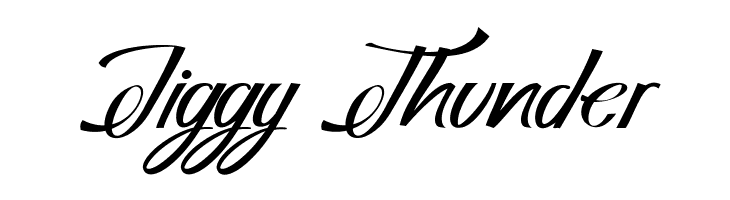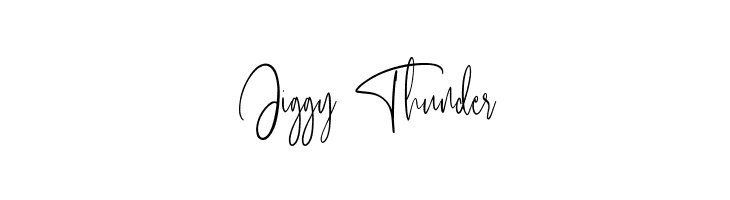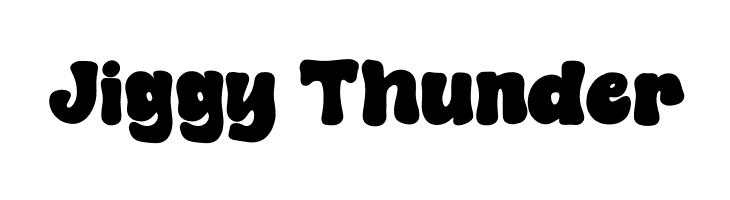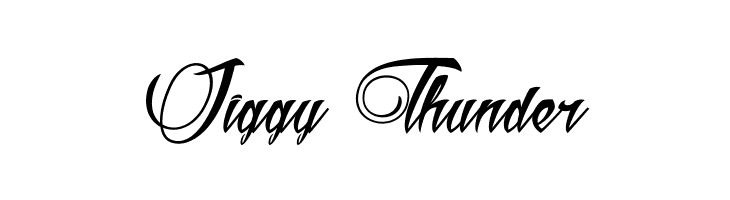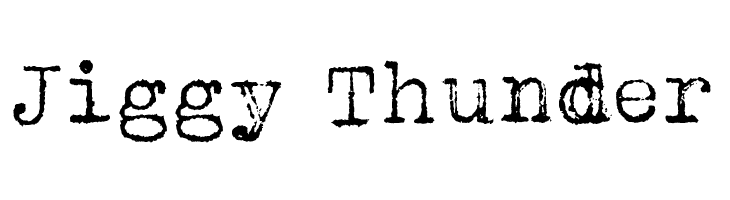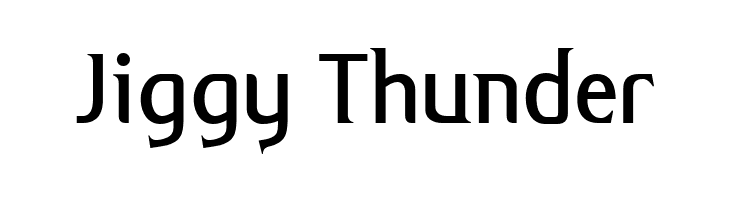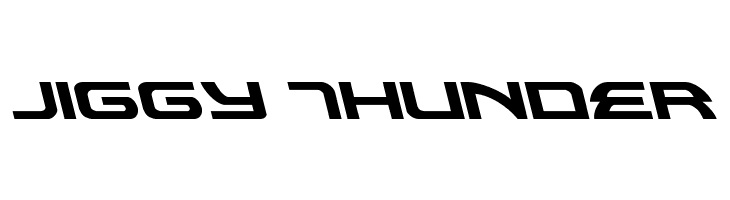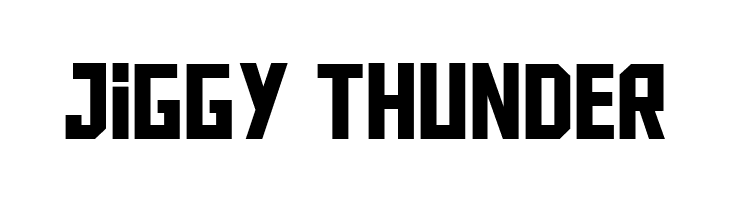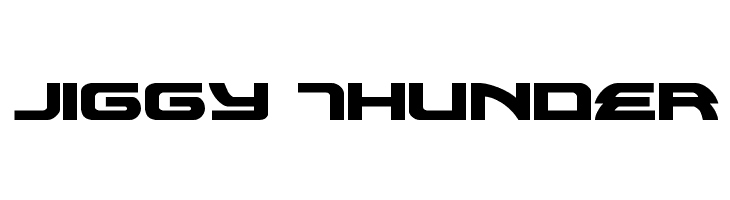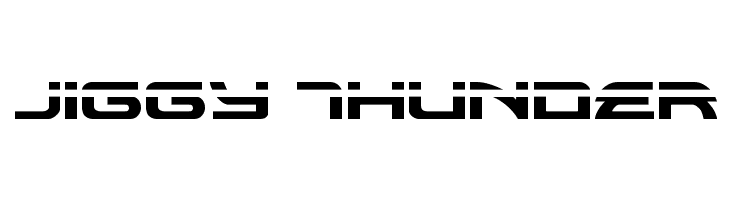
• Alaskano Free Regular
A bold, playful font with rounded, thick strokes and a whimsical style.
• Alaymen Personal Use
A bold, elegant script font with flowing, cursive letterforms.
• Albertsthal Typewriter
A vintage, typewriter-style font with a distressed, monospaced appearance.
• Albertsthal Typewriter
A vintage typewriter-style font with a distressed, textured appearance.
• Albias Smug
An elegant, flowing script font with intricate loops and swirls.
• Aldebaran
An elegant and intricate script font with flowing, interconnected letterforms.
• Aldebaran_PersonalUseOnly
An elegant script font with ornate uppercase and flowing lowercase letters.
• Aldo SemiBold
A modern, geometric font with clean lines and rounded edges.
• Aldo the Apache
A bold, geometric font with sharp angles and a blocky design.
• Aldo's Nova
A futuristic, segmented font with a digital, high-tech appearance.
• Aleena Groovy FREE
A bold, retro-inspired font with playful, decorative elements.
• Alentropics Free
A playful, artistic handwritten font with dynamic strokes and whimsical flair.
• Alex
A modern serif font with sharp edges and balanced structure.
• Alexandra Orleans
An elegant script font with intricate, flowing lines and decorative flourishes.
• Alexandria
• Alexis 3D
A bold, 3D futuristic font with geometric shapes and sharp angles.
• Alexis 3D Italic
A bold, 3D italic font with outlined characters and a futuristic style.
• Alexis Bold
A bold, futuristic font with angular, geometric elements and a strong presence.
• Alexis Bold Italic
• Alexis Bullet
A futuristic, geometric font with outlined, angular letterforms.
• Alexis Bullet Italic
A futuristic italic font with bold outlines and geometric shapes.
• Alexis Condensed